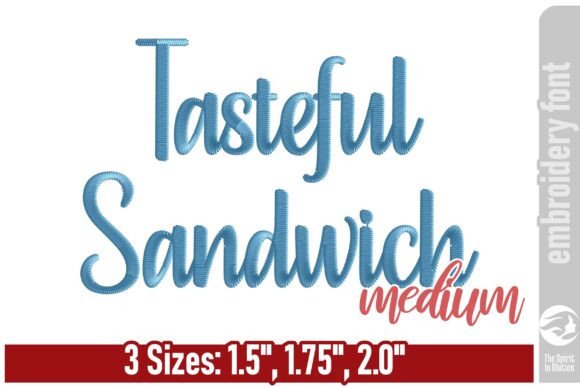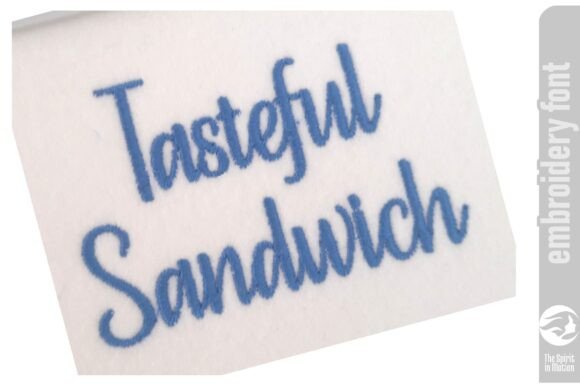
Tasteful Sandwich Embroidery Font - M
Introducing Tasteful Sandwich (Medium), a refined yet effortlessly stylish narrow script embroidery font. Designed with a perfect balance of simplicity and elegance, this font features delicate strokes, and a graceful flow that adds charm to any embroidery project.